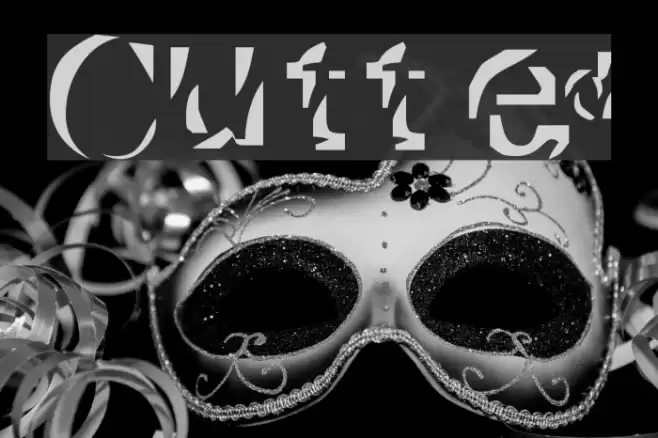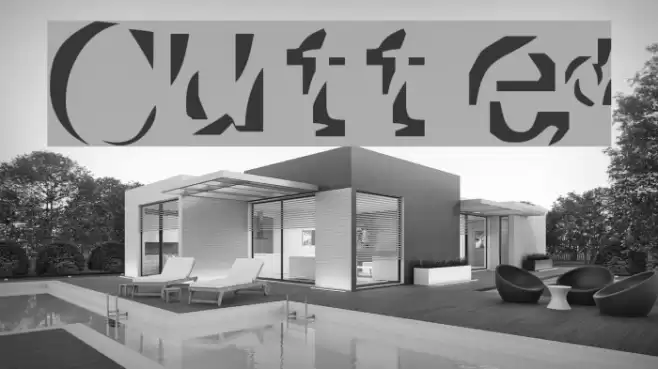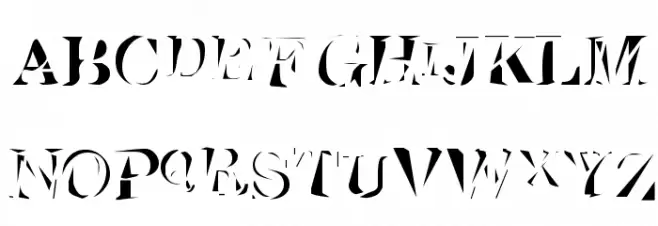
Cutted Font
Cutted Description
This font features a unique, fragmented design where each character appears as if it has been sliced or cut into pieces. The bold, uppercase and lowercase letters are characterized by sharp angles and irregular shapes, creating a dynamic and edgy appearance. The numbers and special characters follow the same cut-out style, adding to the overall cohesive look. The font's high contrast between the thick and thin parts of the characters enhances its striking visual impact. This design is particularly eye-catching and is sure to stand out in any project.
A bold, fragmented font with high contrast and sharp, irregular shapes from Uncategorized fonts.
- Proposed Projects: Ideal for modern art projects, edgy branding, album covers, and fashion-related designs.
- Overall Style: Modern, Edgy